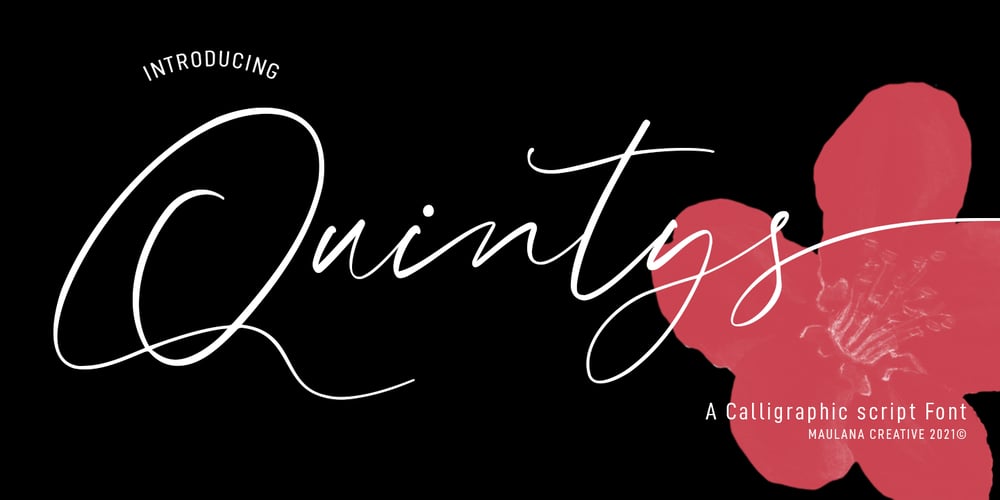
Quintys Font Family was designed by Gilang Maulana and published by Maulana Creative. Quintys contains 2 styles and family package options. Quintys is a beauty calligraphic font. With thin stroke, slanted and Unique Upper and lower characters with bit of ligatures and alternate lower end swash. To give you an extra creative work. Quintys font support multilingual more than 100+ language. This font is good for logo design, Social media, Movie Titles, Books Titles, a short text even a long text letter and good for your secondary text font with sans or serif. Make a stunning work with Quintys font. Cheers, MaulanaCreative